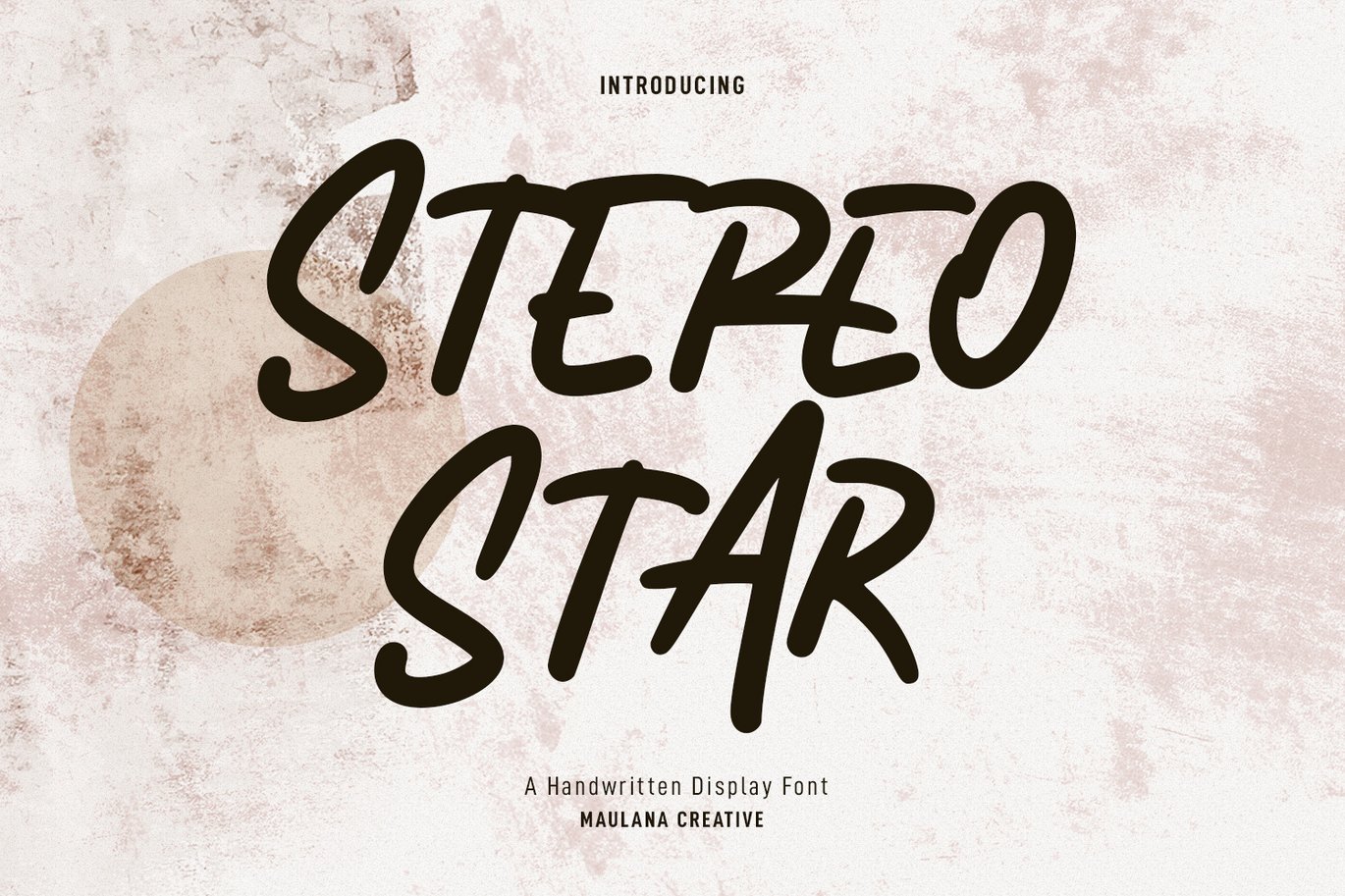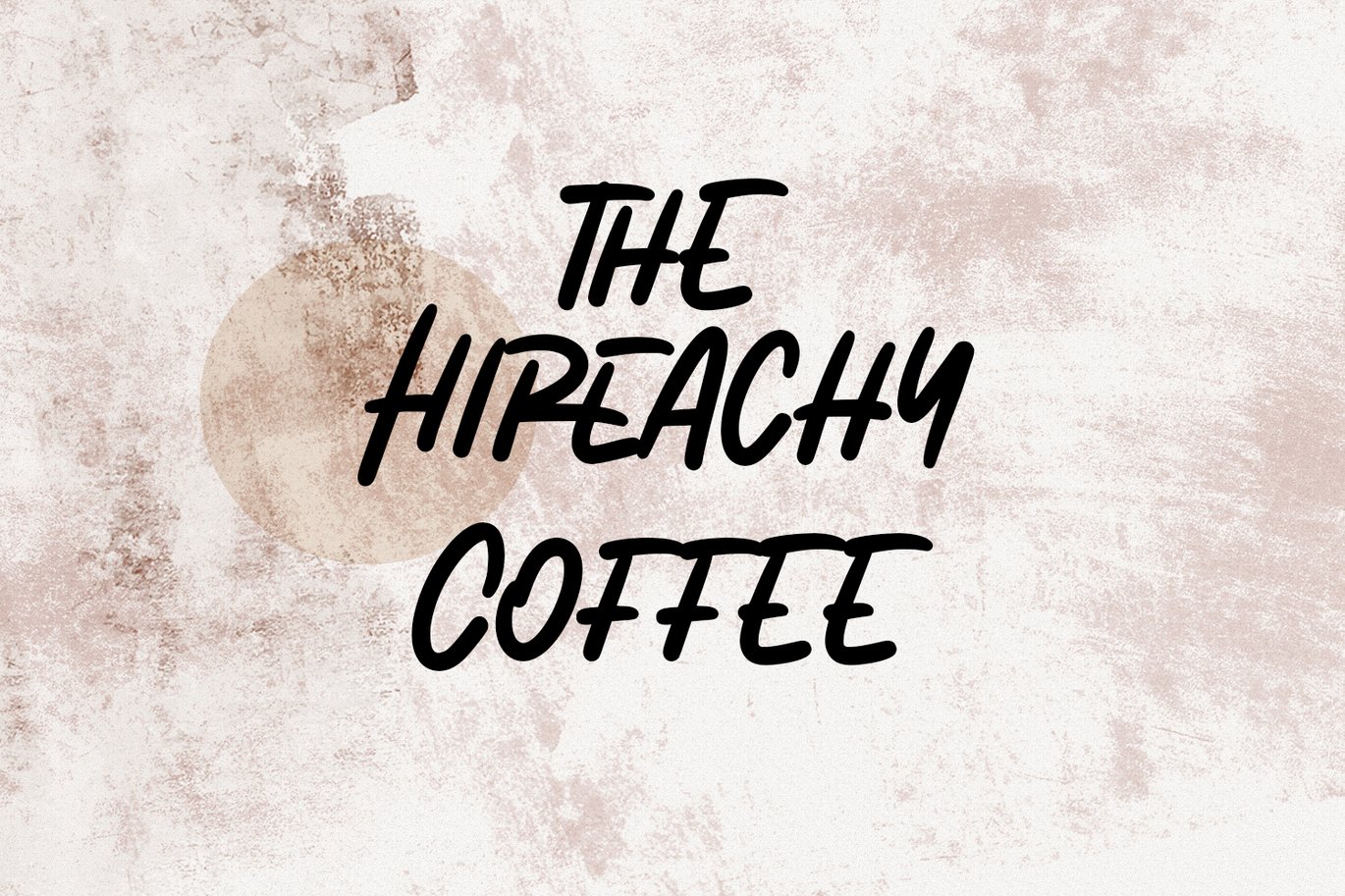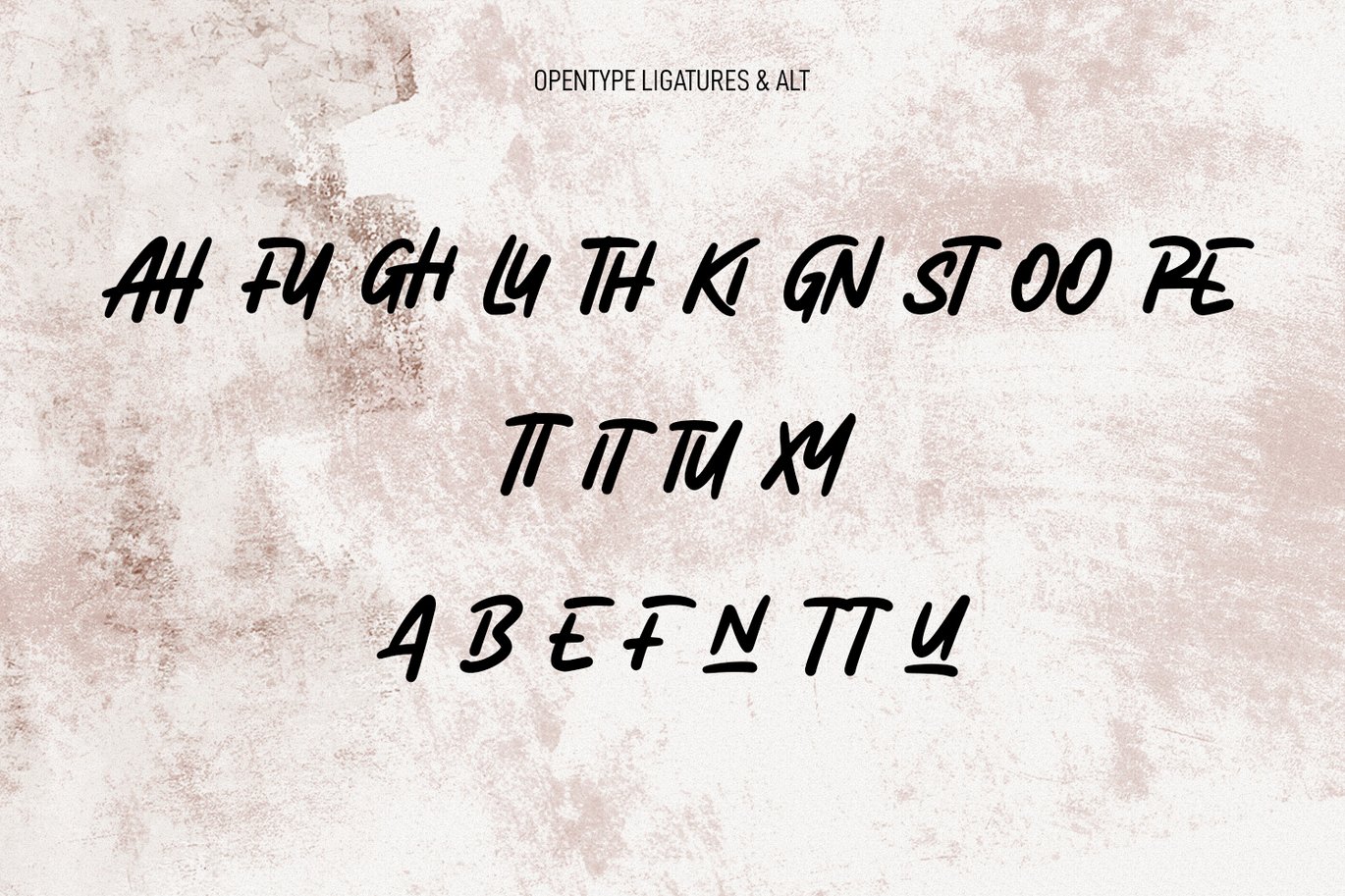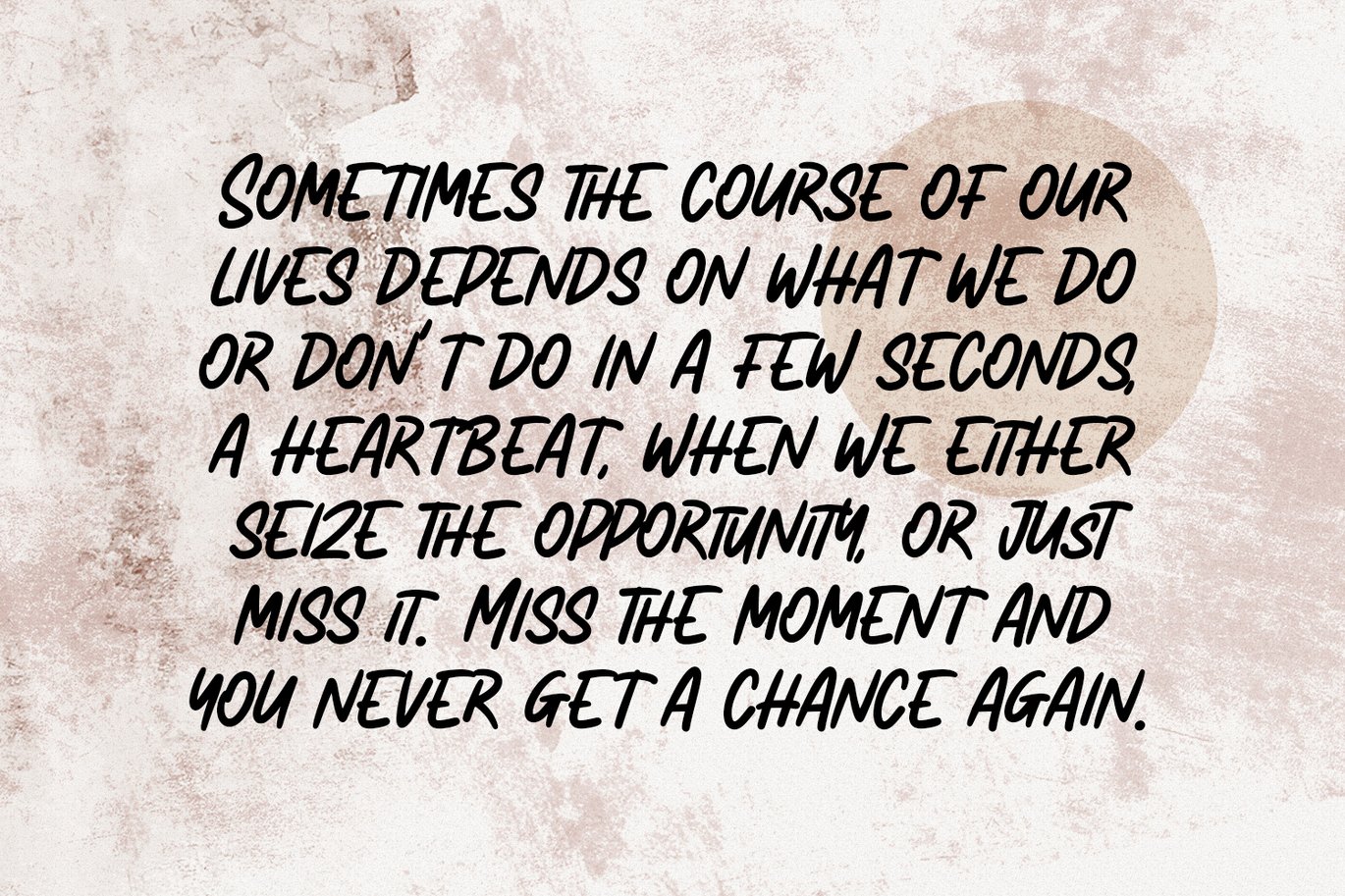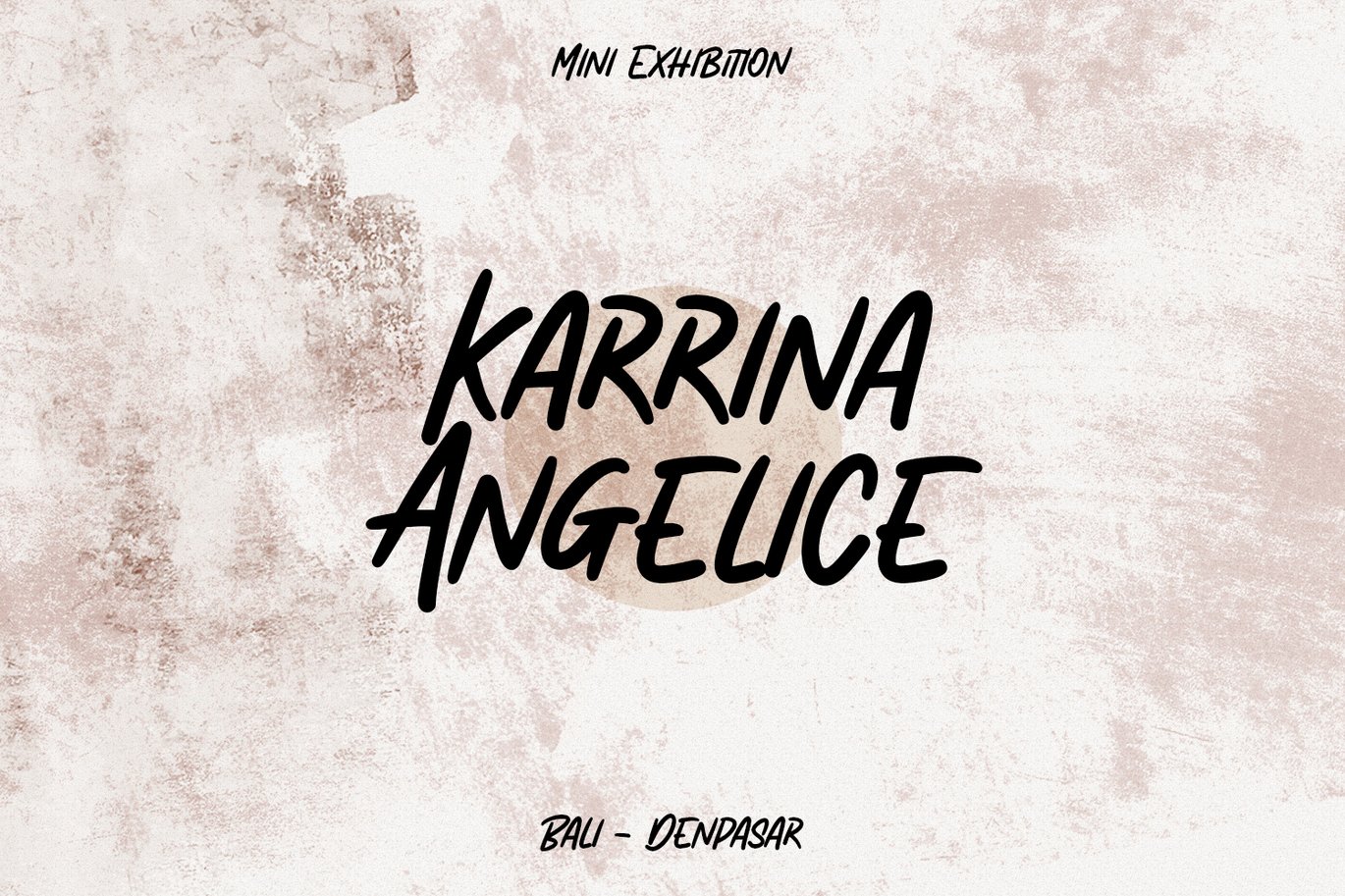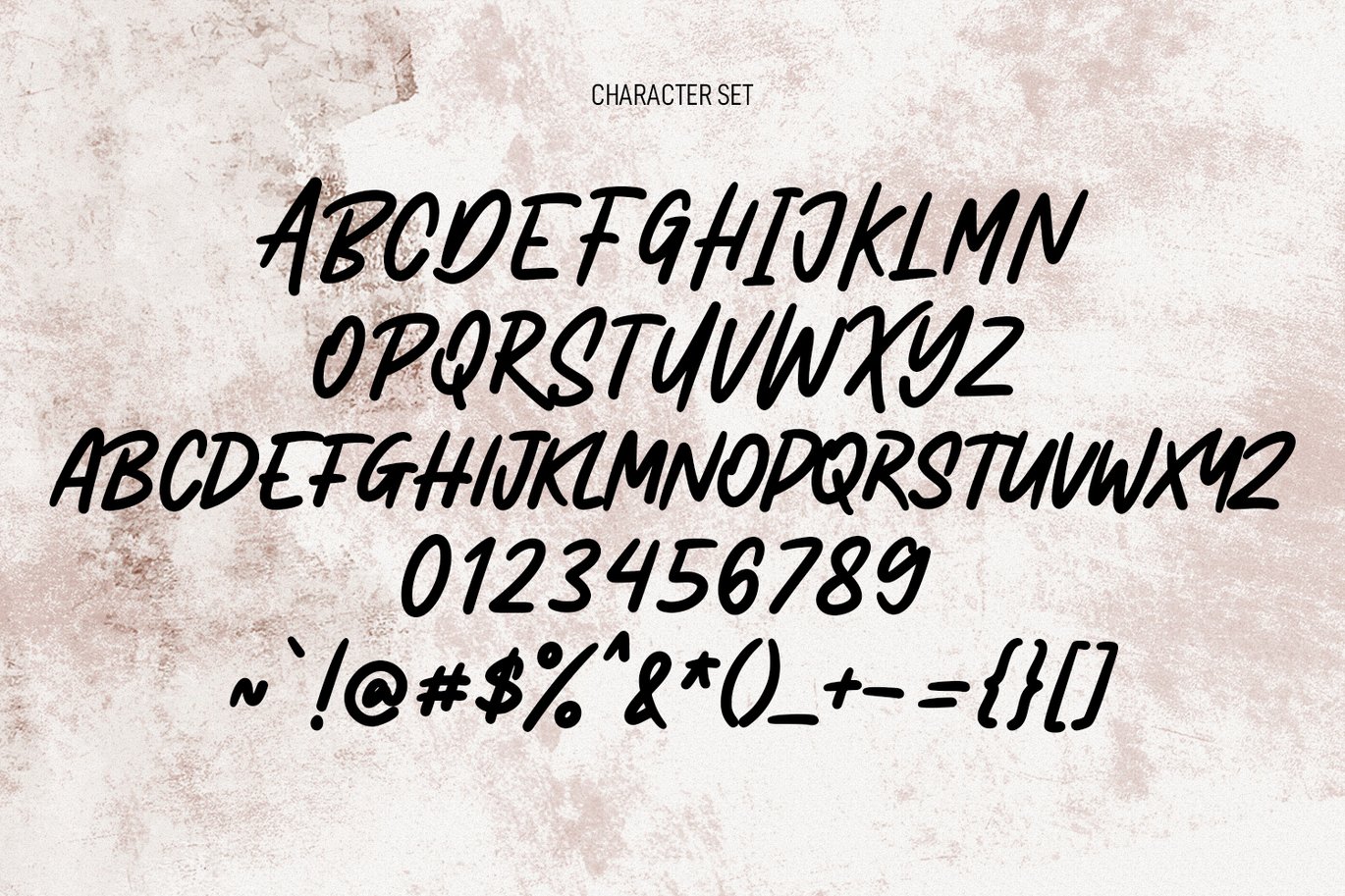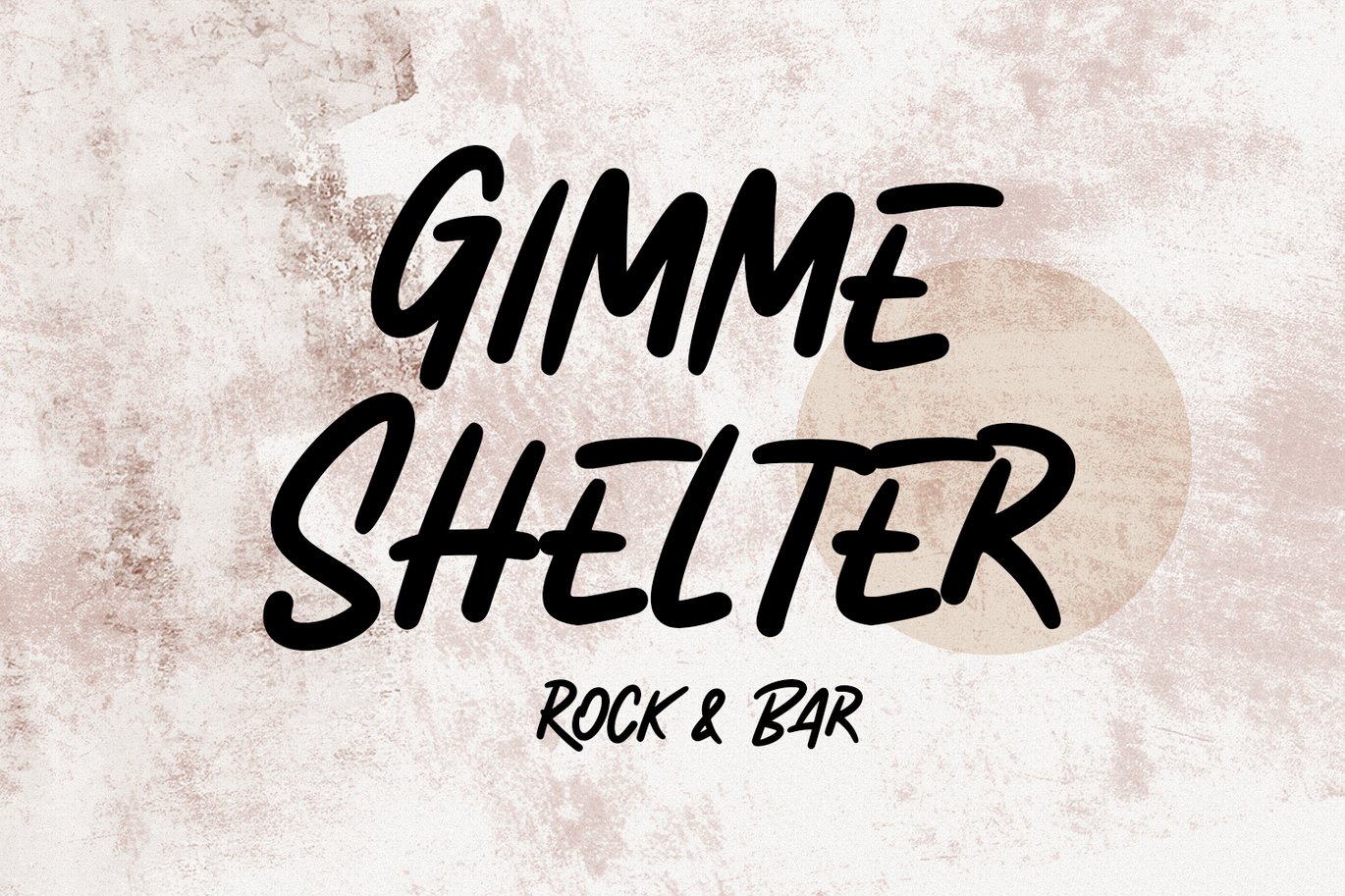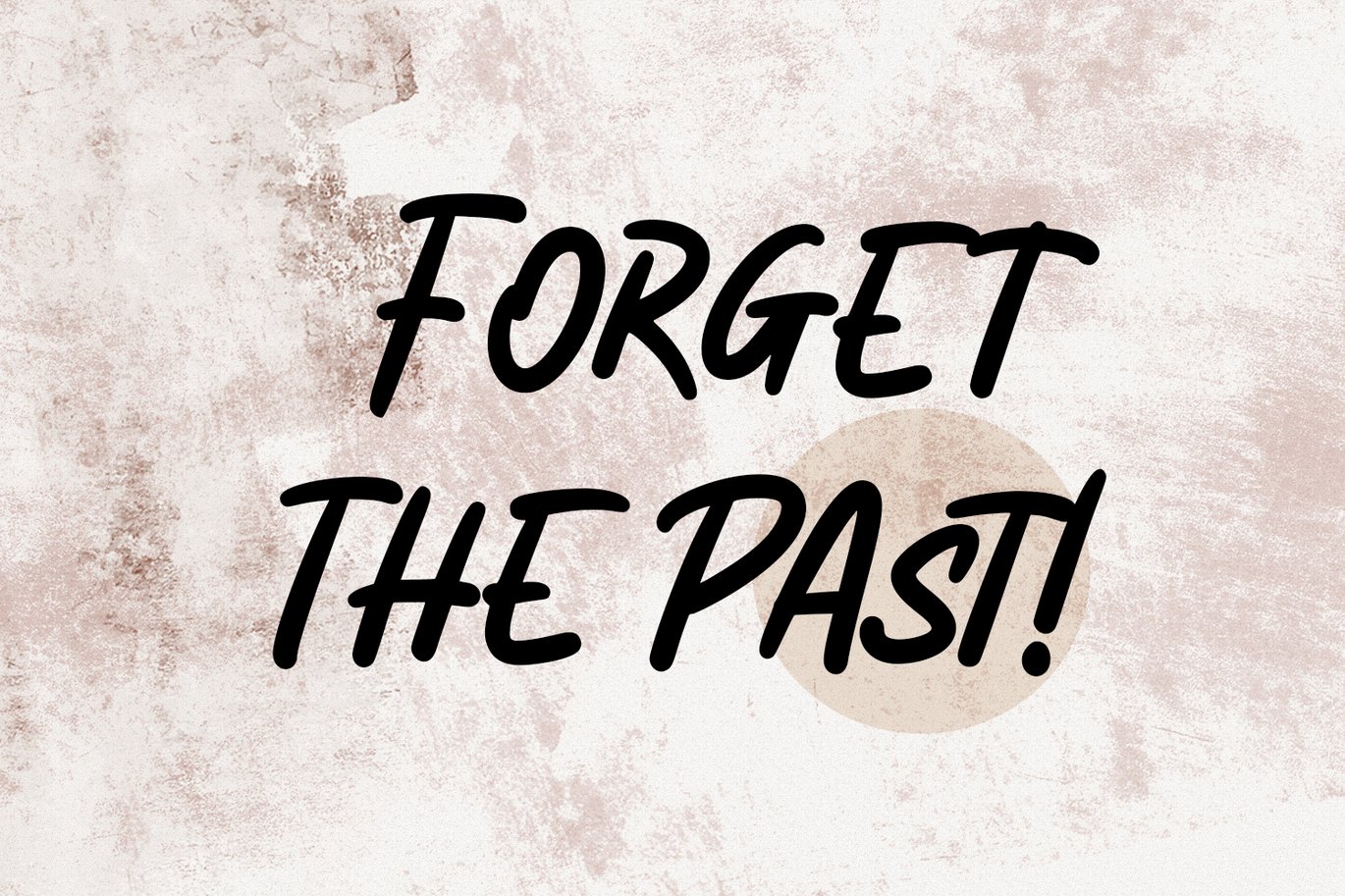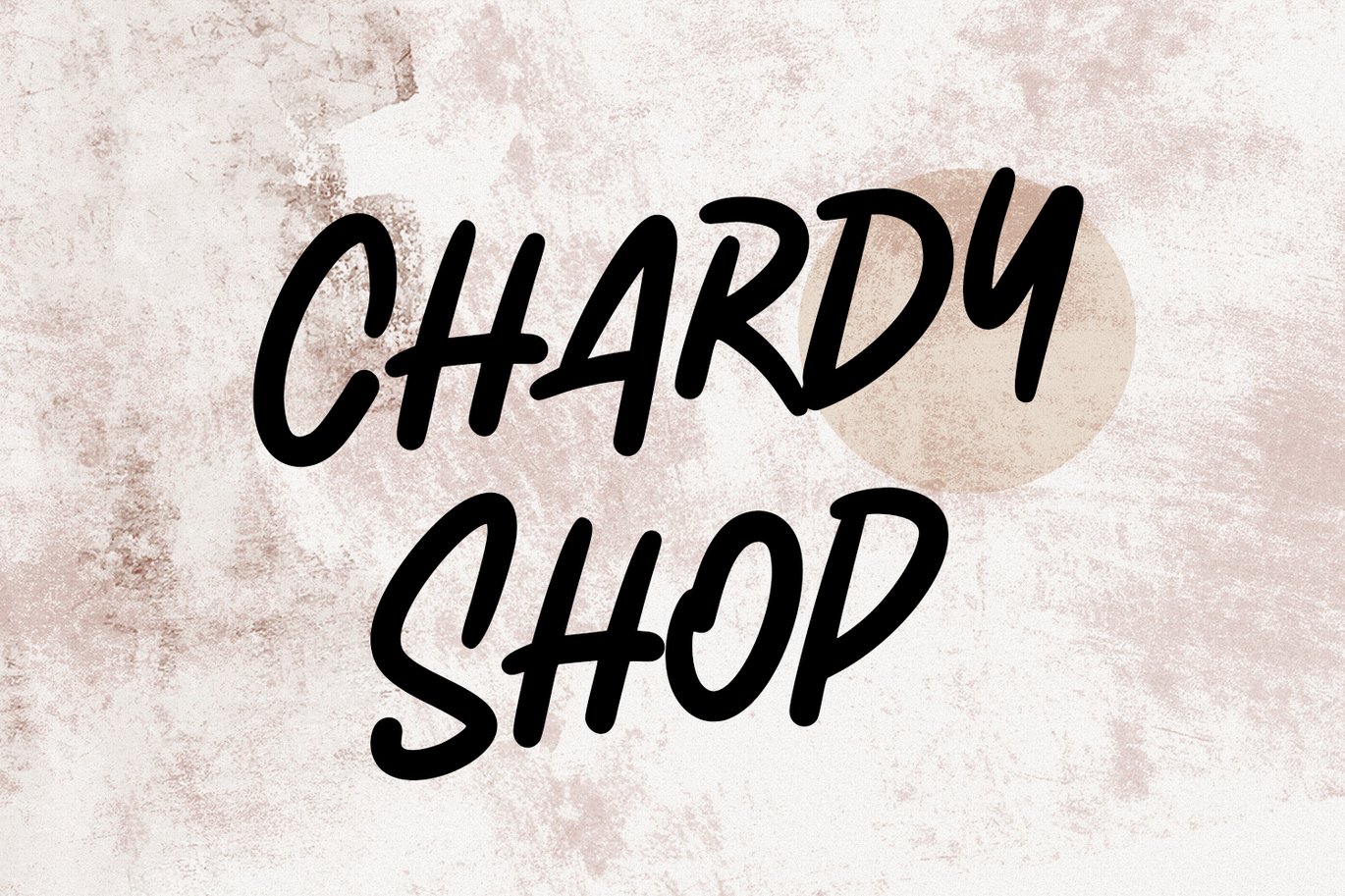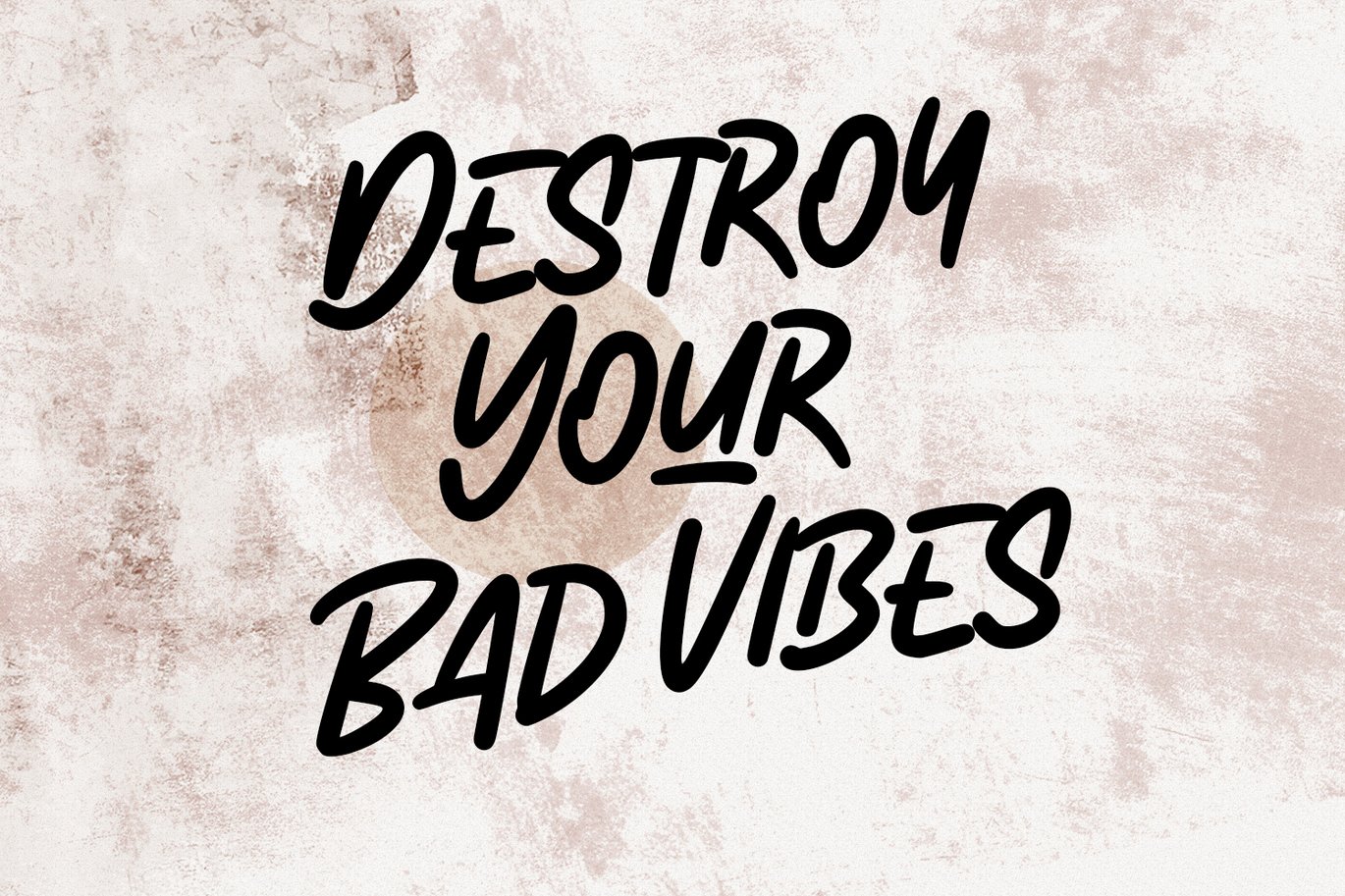
Stereo Star Handwritten Font
Stereo Star is a casual modern handwritten script font. With slanted consist mono-line stroke, fun character. To give you an extra creative work. Stereo Star font support multilingual more than 100+ language. This font is good for logo design, Social media, Movie Titles, Books Titles, a short text even a long text letter and good for your secondary text font with sans or serif. Make a stunning work with Stereo Star font.